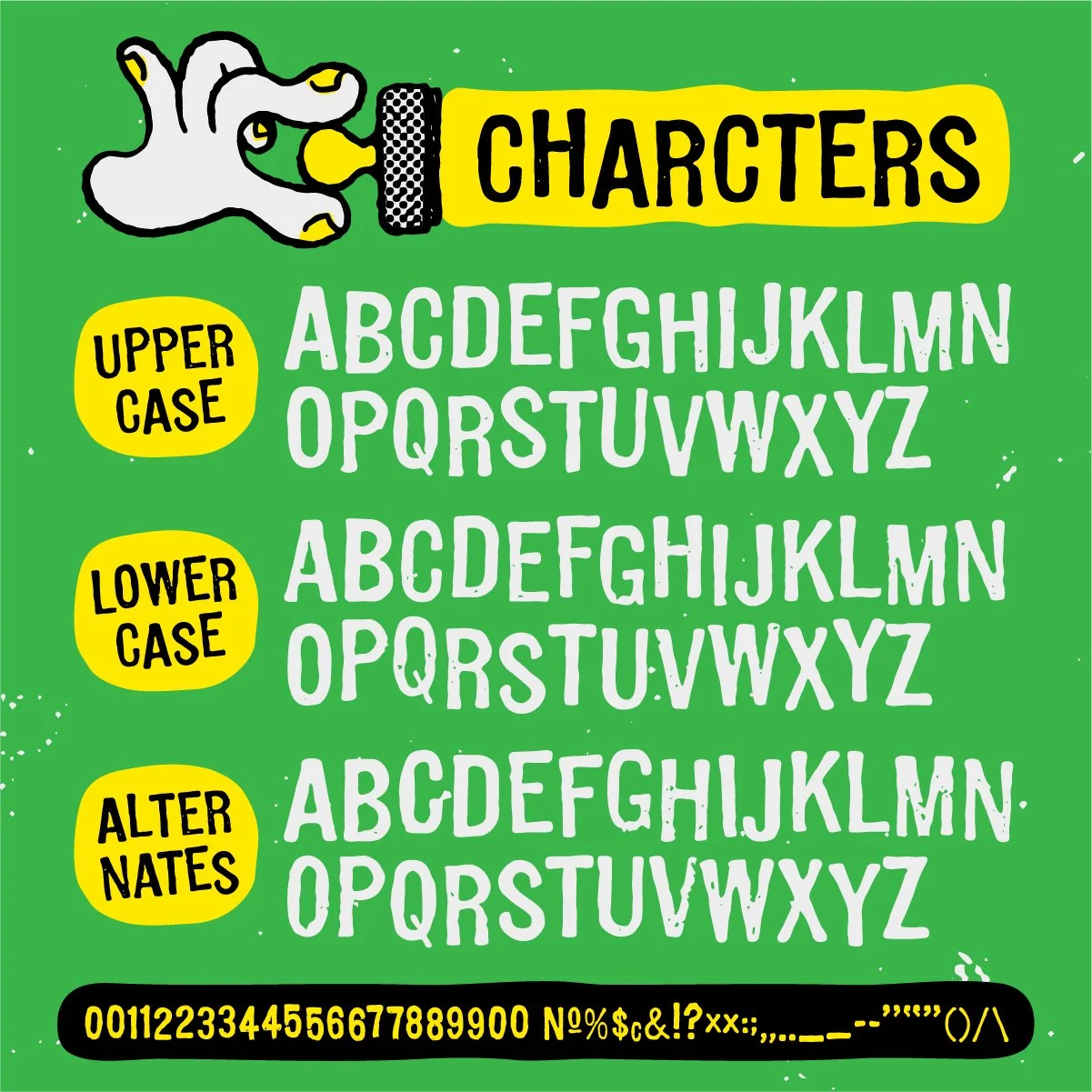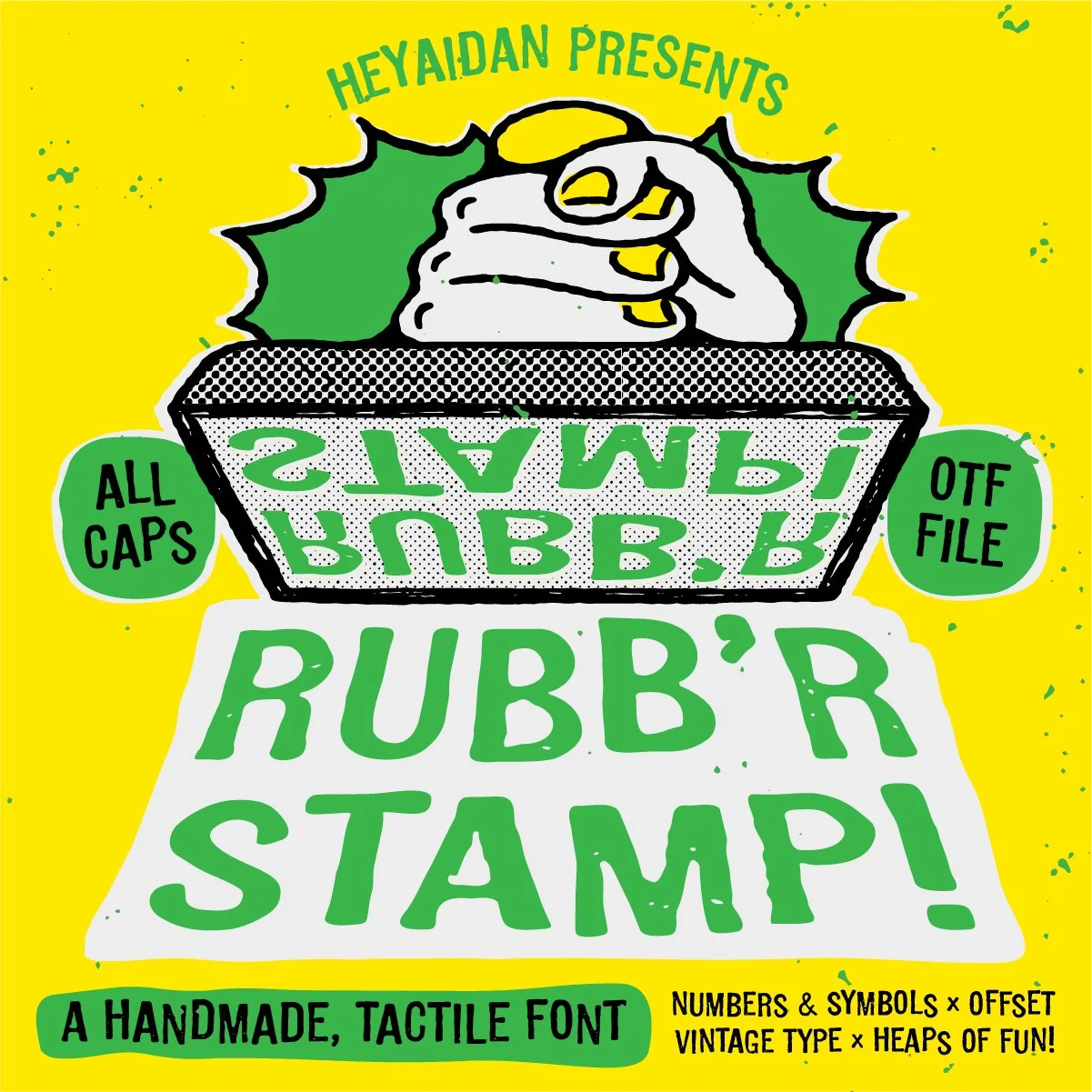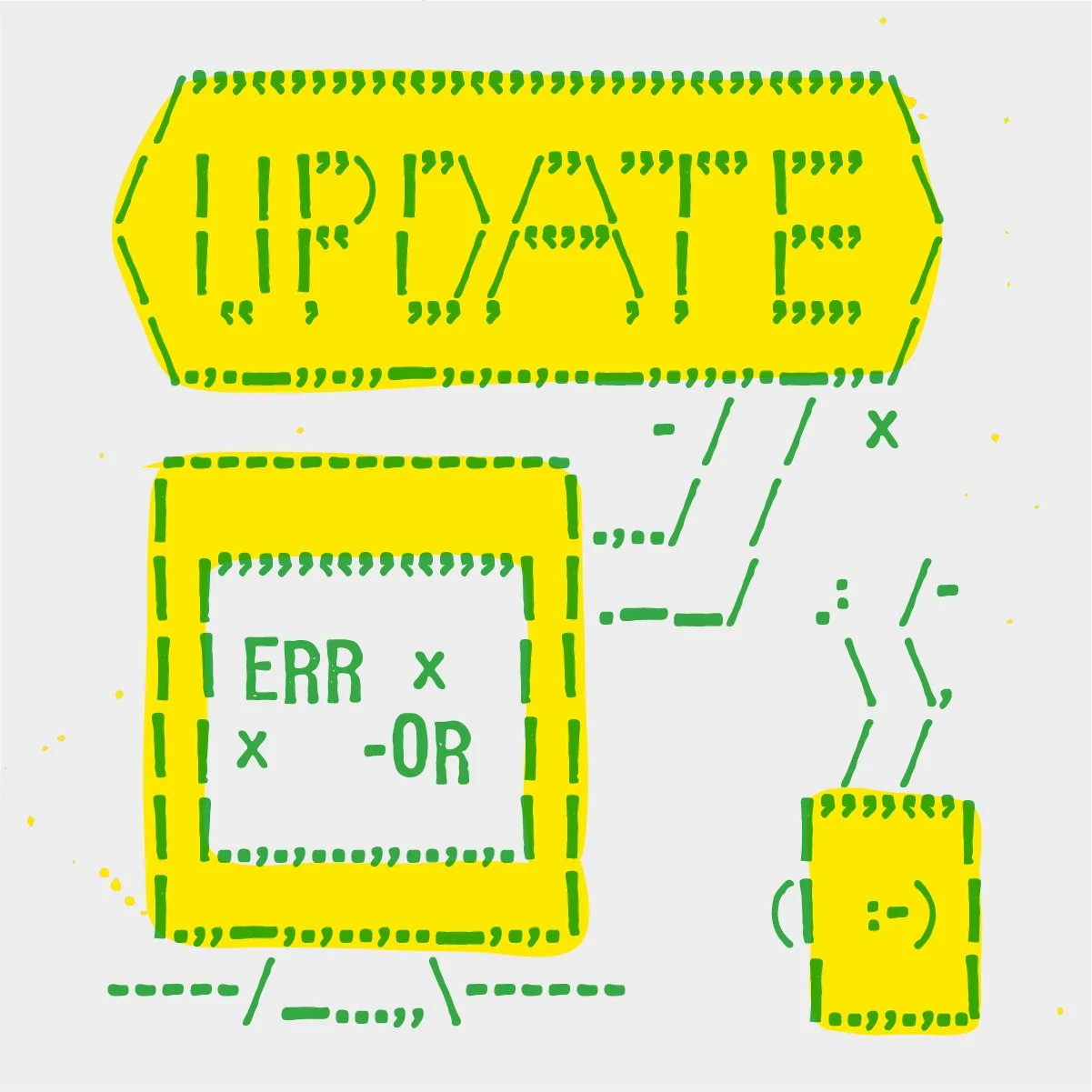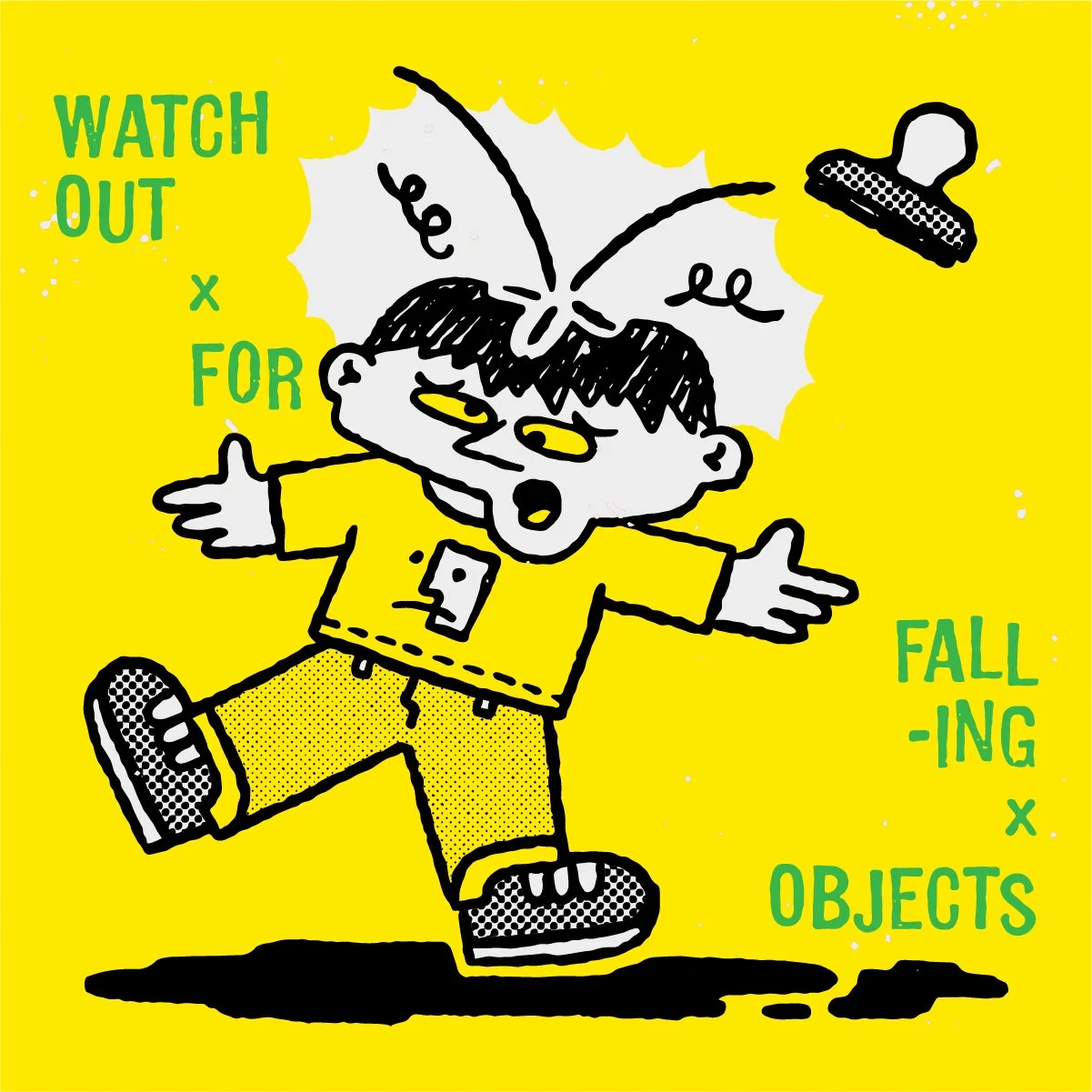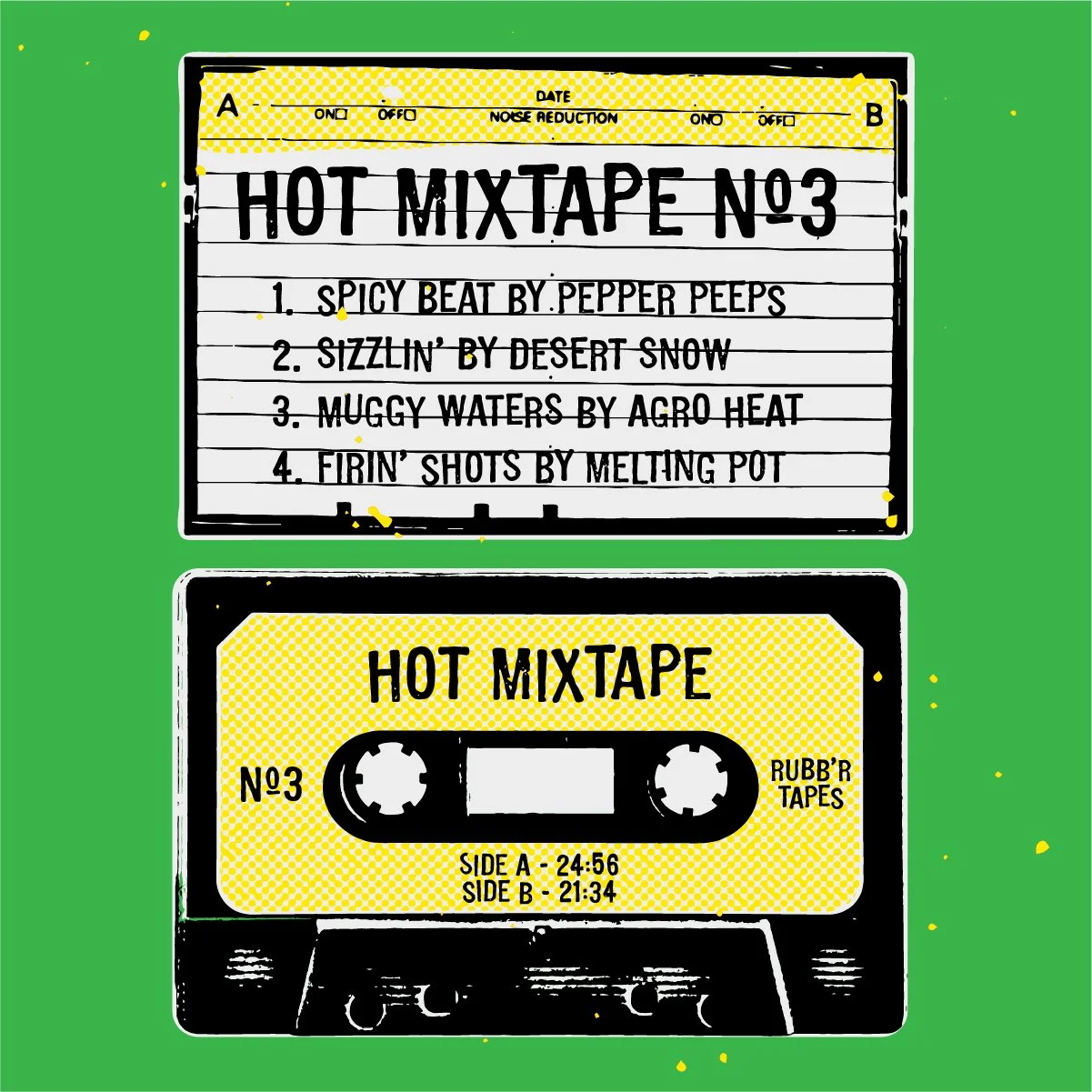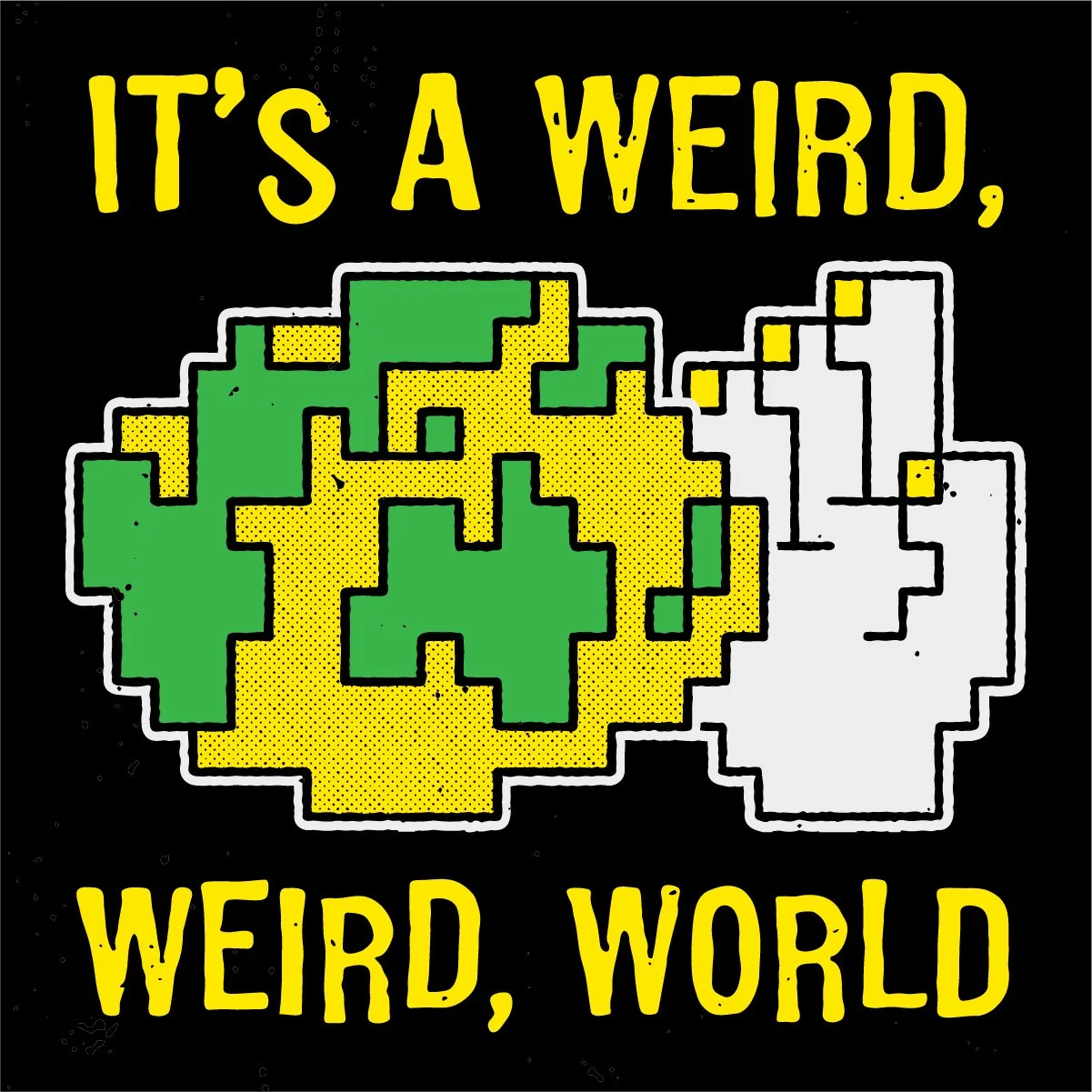
Rubb'r Stamp 🎯 Handmade Tactile Font
Introducing Rubb'r Font 🎯 Sourced from a rubber lettering stamp kit I found at a thrift shop, this handmade and tactile font is perfect for your next DIY project.
Want something a little more handmade in your design? Say no more as we've got you covered with this textured and vintage styled font. Each letter is slightly offset from the baseline to give it a more tactile look. It was super fun scanned in the letters and converting them into a fully functioning font for y'all to use!
Rubb'r Stamp is an All Caps display font that is offset, textured and features alternative options for creative control on how each letter looks within your design. Have fun!
- Uppercase and Lowercase inputs - Alternatives accessible via glyphs.
- Letters in all caps